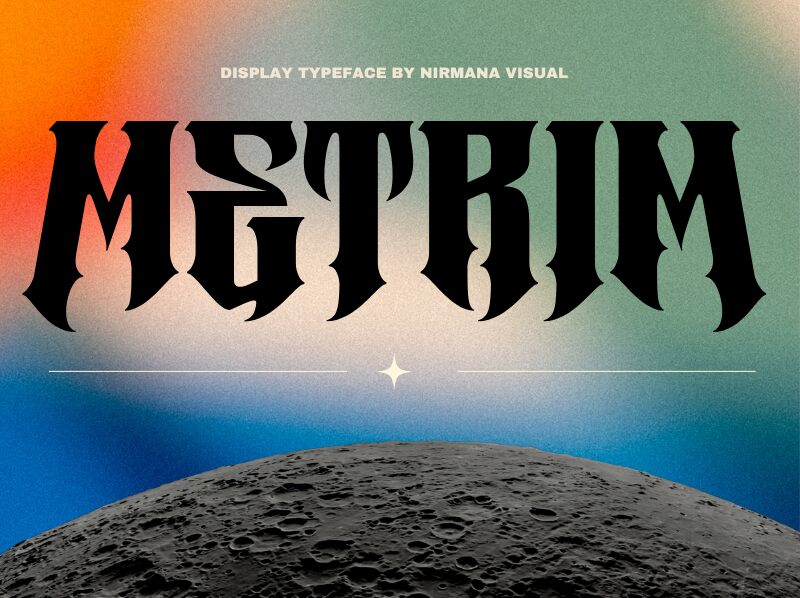
Metrim Letter font by Nirmana Visual is a striking example of modern condensed Gothic font design. It’s not just about creativity either as every letter is clear and distinguishable for easy reading. In addition, although it may not be immediately obvious, these letters actually take inspiration from architectural shapes that were translated into intriguing lines and curves.
With its condensed form and notable look, this bold font is ideal for magazine designs or article headers. However, this isn’t necessarily the exception to the rule as Metrim Letters also work well for branding projects like packaging designs, labels, printed clothes’ products, logos, posters, etc.